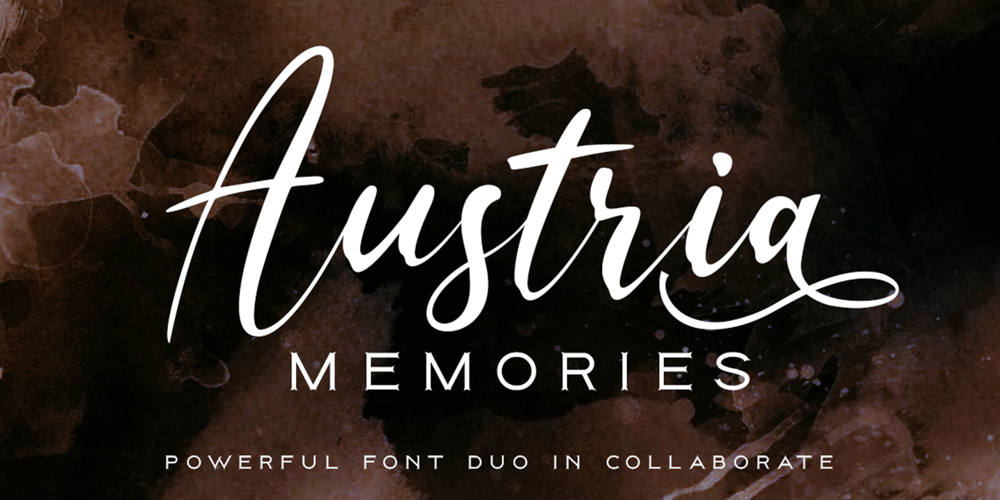
Austria Memories
Austria Memories font
Austria Memories Font Family was designed by Sarwo Edhi Prayitno and published by Haksen. Austria Memories contains 2 styles and family package options. Introduce powerful font duo collaboration in Austria Memories the stylish modern and natural fonts combination with casual brush in script and elegant in Serif. These are perfect for branding, wedding invites and cards, and more option for your requirement.Austria Memories include two font styles with full set of natural brush style draw for script and elegant with all uppercase letters for serif. Numerals, a large range of punctuation and ligatures giving realistic hand-lettered style.In order to use the beautiful ligatures for script also all uppercase for sans serif, you need a program that supports OpenType features such as Adobe Illustrator CS, Adobe Photoshop CC, Adobe Indesign and Corel Draw.Thanks and have a great day :)Haksen